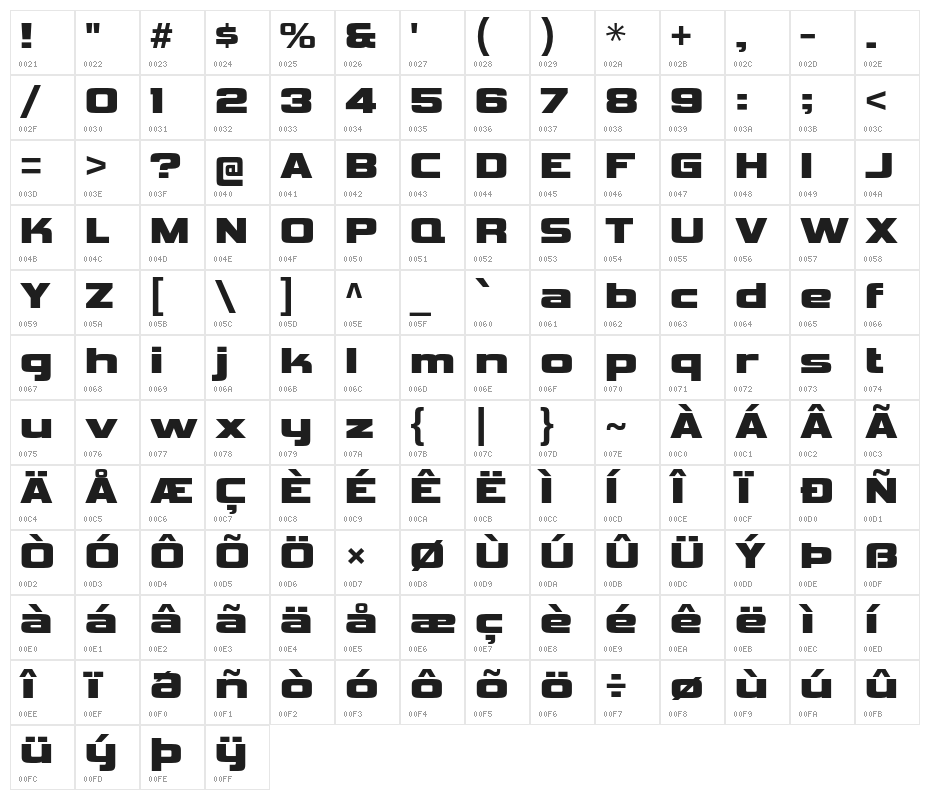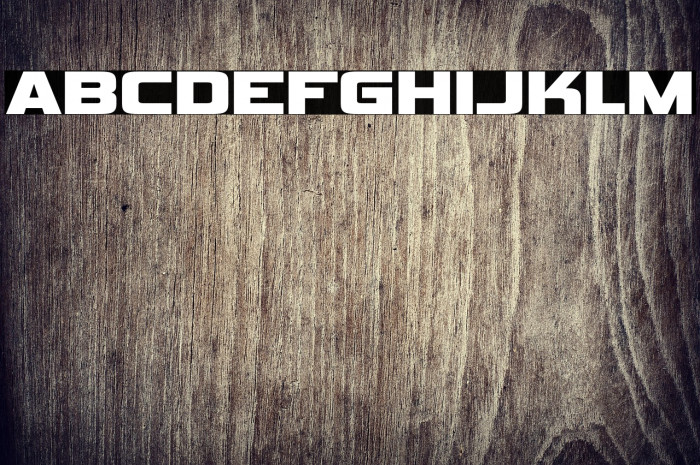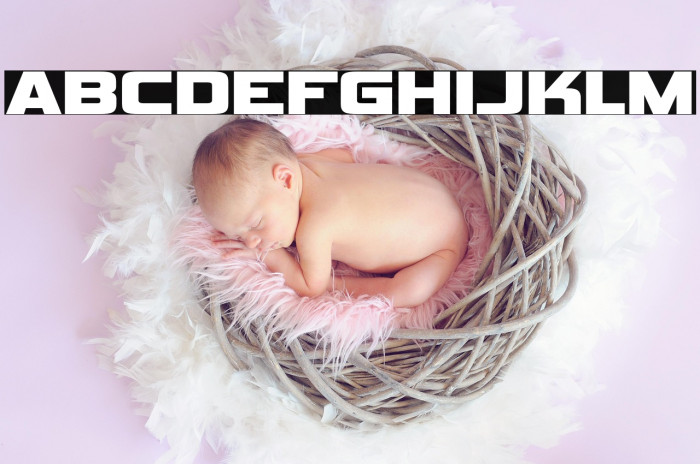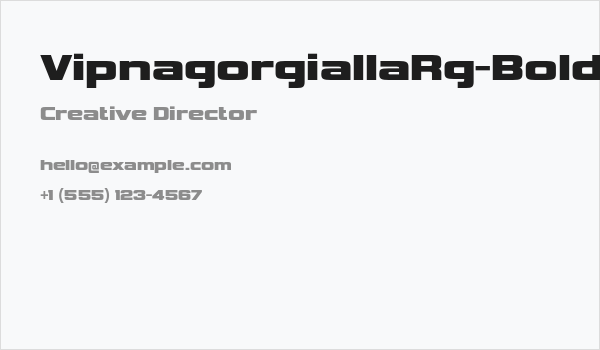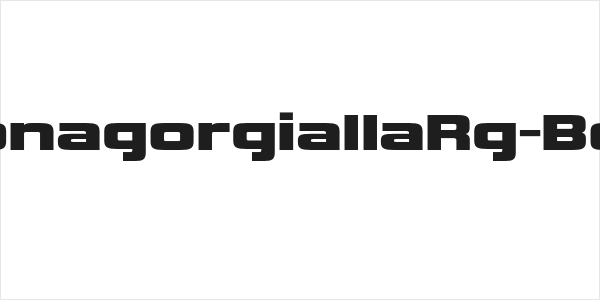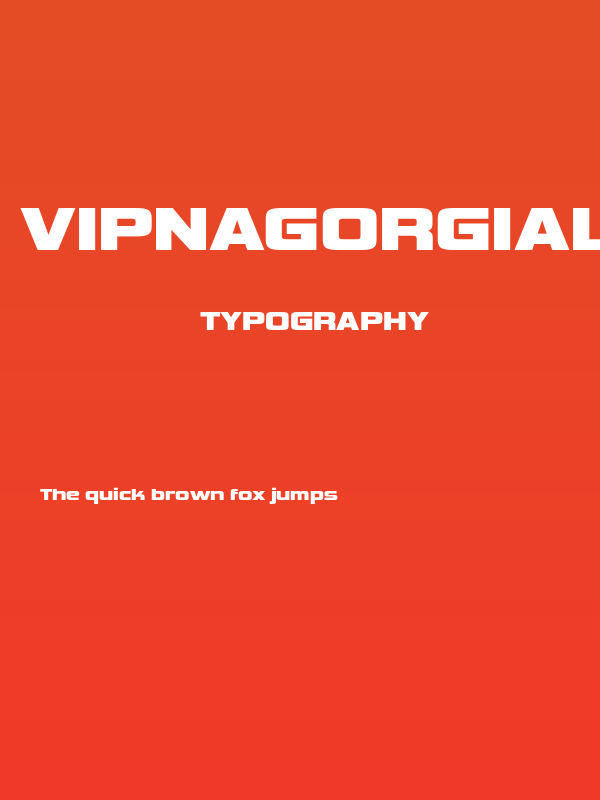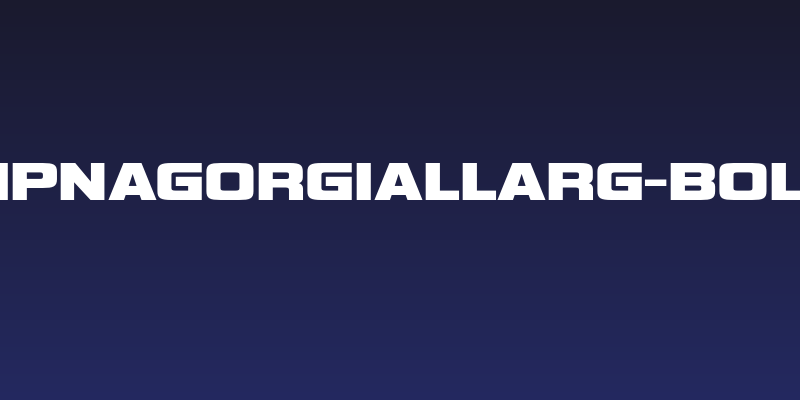
VipnagorgiallaRg-Bold Font
VipnagorgiallaRg-Bold Description
This font features a bold and assertive design with strong geometric shapes and a modern aesthetic. The uppercase letters are particularly striking, with a uniform height and width that convey a sense of stability and strength. The lowercase letters maintain the boldness while offering a slightly softer edge, making them versatile for various design applications. The numerals are clear and easy to read, with a consistent weight that matches the alphabetic characters. Special characters are well-integrated, maintaining the overall bold and modern style. This font is ideal for projects that require a strong visual impact.